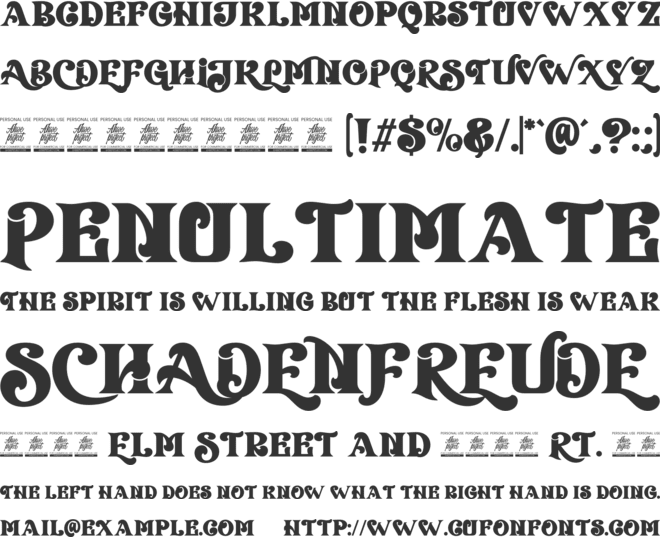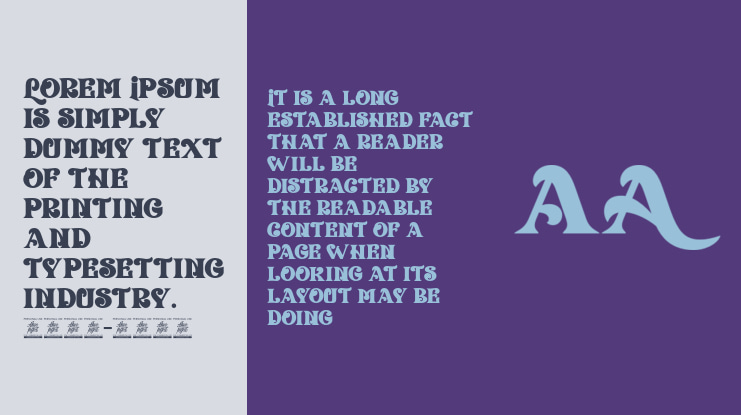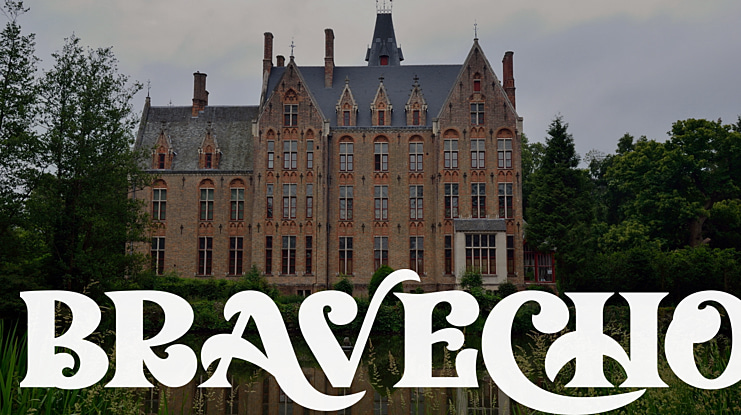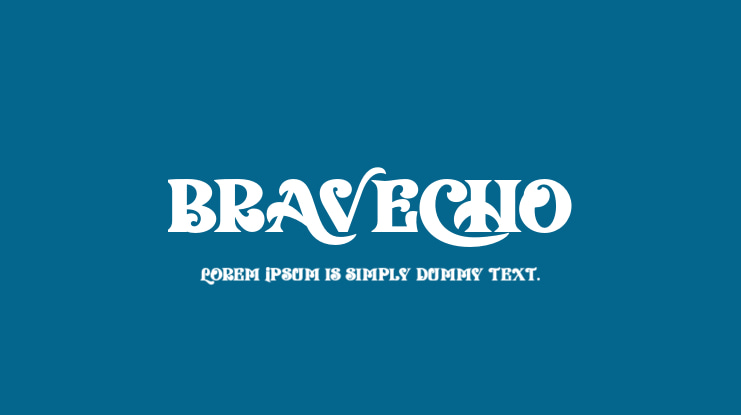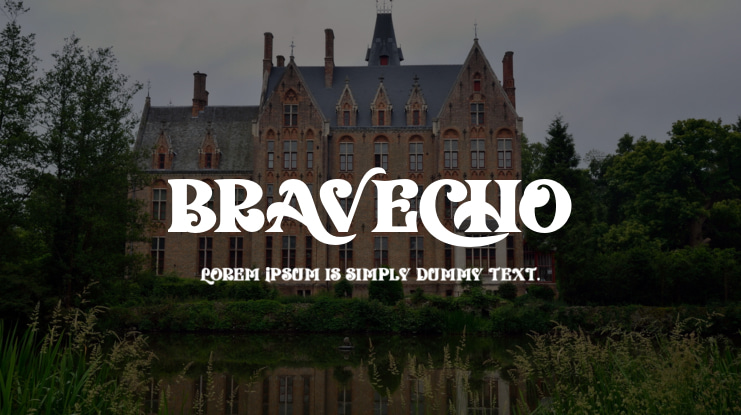
Bravecho Font
Bravecho is a highly detailed and distinct display font. Use this serif display font to add any design idea you can think of! Masterfully designed to become a true favorite, this font has the potential to bring each of your creative ideas to the highest level! This font is PUA encoded which means you can access all of the glyphs and swashes with ease!